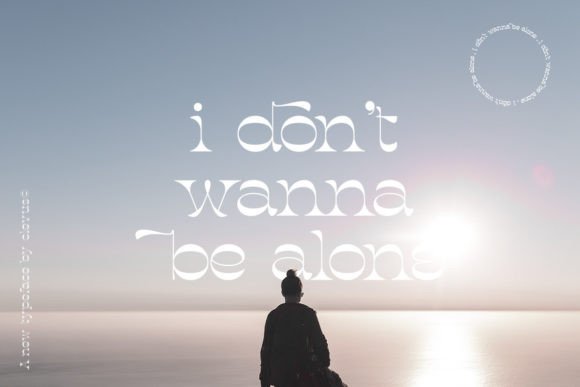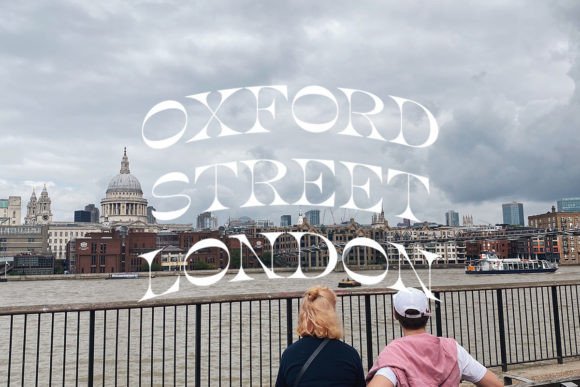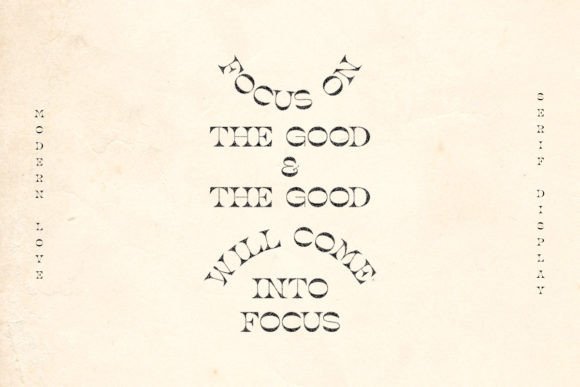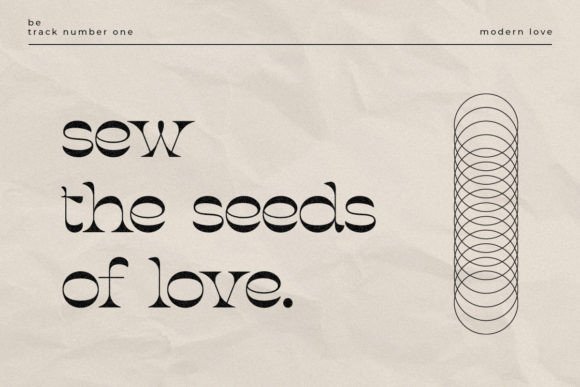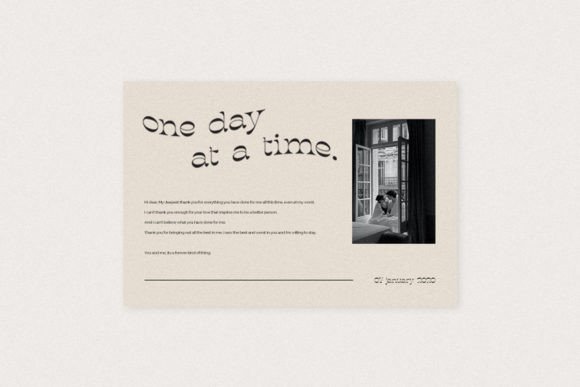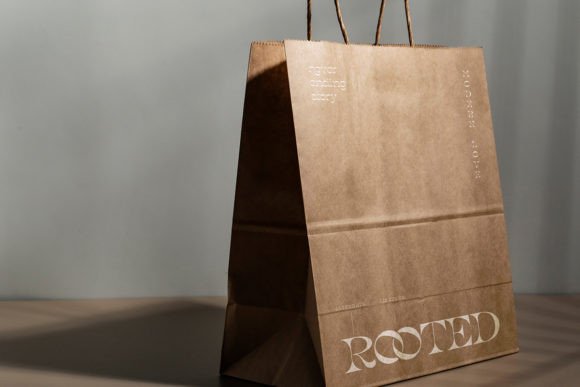
Introduction to Modern Love Font Font
Fonts play a crucial role in design, and the Modern Love Font font is a typeface that brings both character and versatility to any project. Whether you’re working on a branding project, a website, or a print design, the Modern Love Font font offers a unique style that can elevate your work.
Modern Love is delicate, sweetly designed font which radiates a nostalgic feeling.
The font will perfectly fit project ideas such as invitations, event posters, magazines, and anything that requires a sentimental art form This font is PUA encoded which means you can access all alternatives and ligatures freely.
Key Features of Modern Love Font Font
Why Choose Modern Love Font Font?
The Modern Love Font font is more than just a typeface – it’s a design tool that helps you communicate your message with style and clarity. Its unique character set and versatile design make it suitable for a wide range of applications, from elegant invitations to bold headlines.
With its carefully crafted letterforms and balanced proportions, the Modern Love Font font ensures readability and visual appeal across all mediums.
What makes Modern Love Font font special?
The Modern Love Font font stands out with its unique design, exceptional readability, and versatility across various design applications.